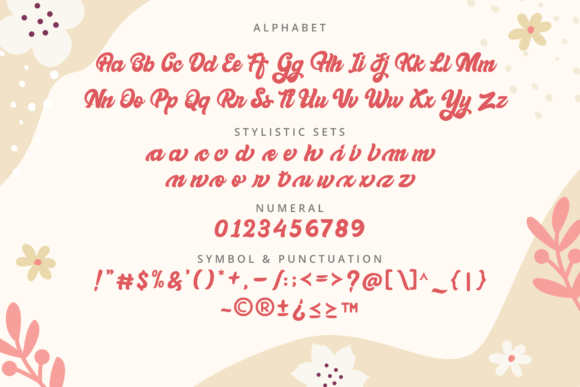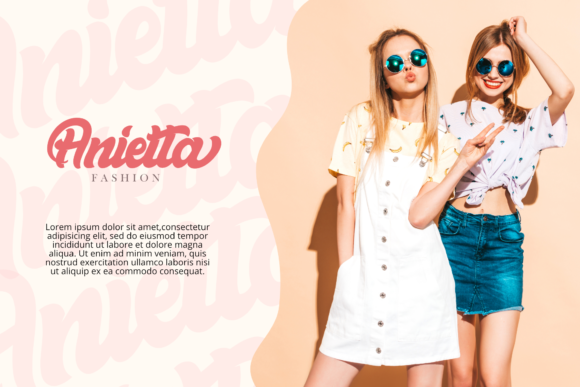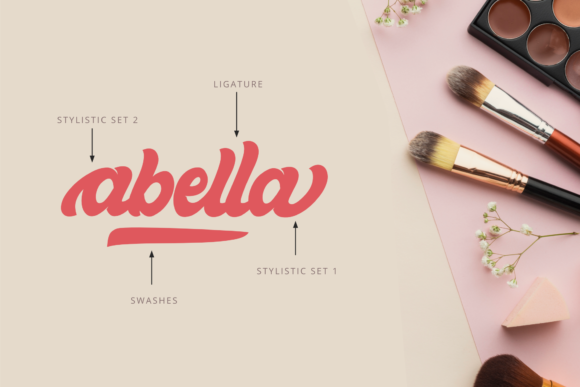
The Perfect Dose of Creativity: Introducing the Bellynice Font
Have you ever been stuck in a design rut, searching for that one element to elevate your project and make it truly stand out? We’ve all been there – pouring over fonts, colors, and textures, trying to find the perfect combination to convey our message. And then, it hits you: a spark of creativity that ignites a new idea and takes your design to the next level.
Enter the Bellynice Font, a bold script font that’s sure to make a statement. Inspired by the unique shape and texture of jelly fat, this font is perfect for adding a striking look to your designs. From branding and logos to product packaging and posters, the Bellynice Font is a versatile tool that can be used in a wide range of applications.
Whether you’re a seasoned designer or just starting out, the Bellynice Font is a valuable addition to your toolkit. Its unique style and versatility make it an ideal choice for anyone looking to add a touch of creativity and personality to their designs.
Bellynice Font Key Features
- Font Family: Bellynice Font offers a unique and elegant script font family, perfect for various design projects.
- Unique Characteristics: This font features beautiful, flowing connections and subtle flair at the ends of letters, making it ideal for creating elegant and sophisticated designs.
Bellynice Font Review
I recently had the chance to work with the Bellynice Font, and overall, I was quite impressed. Here are some of the things that worked well for me: ✨
- The font has a unique, modern aesthetic that I think would be perfect for a wide range of projects.
- It’s incredibly versatile and can be used for both body text and headings, which is a big plus in my book.
- The font is highly legible, even at small sizes, which is essential for any font I’m considering using.
However, I did encounter some limitations that may be worth considering: ⚠️
- The font can be a bit too “out there” for some projects, which may not be the best fit for more conservative or traditional designs.
- The font doesn’t include as many language support options as some of the other fonts I’ve worked with.
Overall, I would say that the Bellynice Font is a solid choice for designers looking for a modern, versatile font. While it may not be perfect for every project, I think it’s definitely worth considering for those looking for something fresh and exciting.